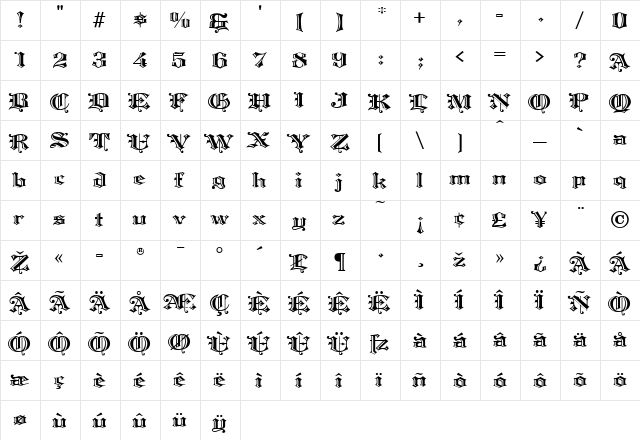
Warwick Regular
| Foundry | Digitized by Dan X. Solo. Software \ by Dover Publications, Inc |
Design Context for Warwick Typeface
Warwick is a composed and adaptable typeface that performs quietly and consistently across a wide range of design contexts.